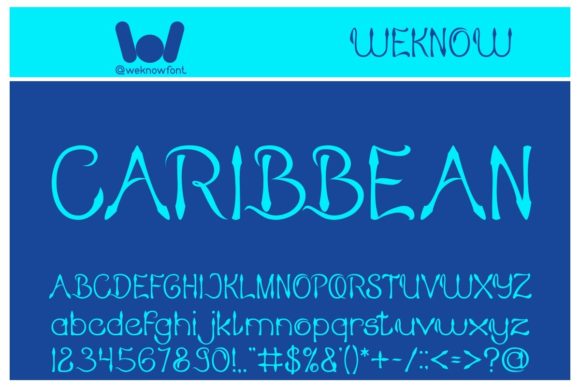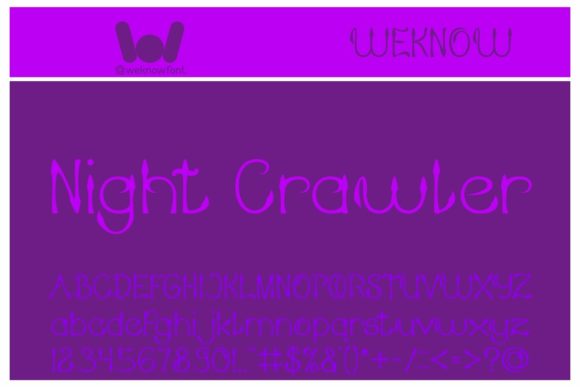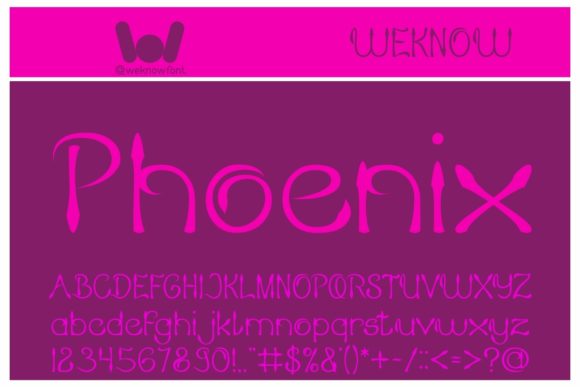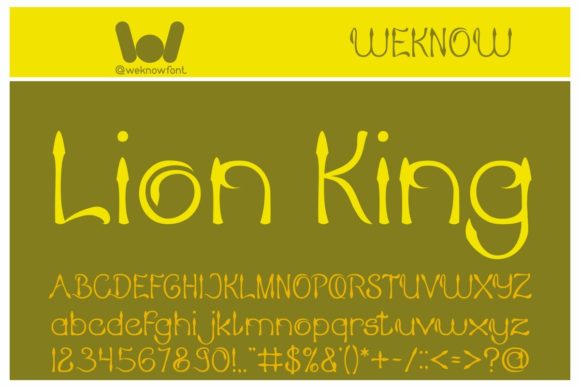
The Perfect Treasure for Your Designers’ Arsenal
Have you ever been working on a project, and the perfect font just slips through your fingers? You know, that elusive combination of style, sophistication, and a dash of drama that elevates your design to new heights?
Well, treasure hunters, we’ve got some exciting news for you! Introducing the King of Pirates Font, a majestic handwritten font that’s as gothic as it is elegant. This stunning font is not just a pretty face, but a powerful tool that can breathe life into your designs and leave a lasting impression on your audience.
As a valuable addition to your fonts library, the King of Pirates Font is a treasure that’s sure to yield a bounty of creative possibilities. Whether you’re a seasoned designer or a newcomer to the world of typography, this font is sure to be a trusted companion in your design journey.
King of Pirates Font Key Features
- Unique Characteristic: The King of Pirates font features a unique, hand-drawn style with intricate details and ornate flourishes, giving it a distinctive and eye-catching appearance.
King of Pirates Font Review
First impressions matter, and the King of Pirates Font delivers. The bold, adventurous vibe is perfect for any project that needs a sense of swashbuckling excitement. The font’s dynamic feel makes it shine in titles and headings, where it can really show off its flair. ✨
One of the standout features of the King of Pirates Font is its versatility. It works well in a range of contexts, from pirate-themed designs to more general use cases where a bit of swagger is needed. The font’s adventurous spirit is infectious, making it a great choice for designers looking to add some excitement to their projects.
- ⚠️ The font may not be suitable for large blocks of text, as its adventurous feel can become overwhelming. It’s best used in moderation, to add a touch of flair rather than overwhelm the reader.
- ⚠️ The font’s irregularity can make it challenging to read at small sizes. Be sure to test the font at various sizes to ensure it remains legible.
Overall, the King of Pirates Font is a fun, adventurous choice that’s perfect for designers looking to add a bit of excitement to their projects. While it may have some limitations, its unique feel makes it a great addition to any designer’s toolkit.
Tips for Getting the Most Out of the King of Pirates Font
To get the most out of the King of Pirates Font, consider the following tips:
- Use it for pirate-themed designs or projects.
- Combine it with other fonts for a unique look.
- Experiment with different font sizes and colors.
The King of Pirates Font is commonly used for:
- Pirate-themed logos and branding.
- Adventure and travel-themed designs.